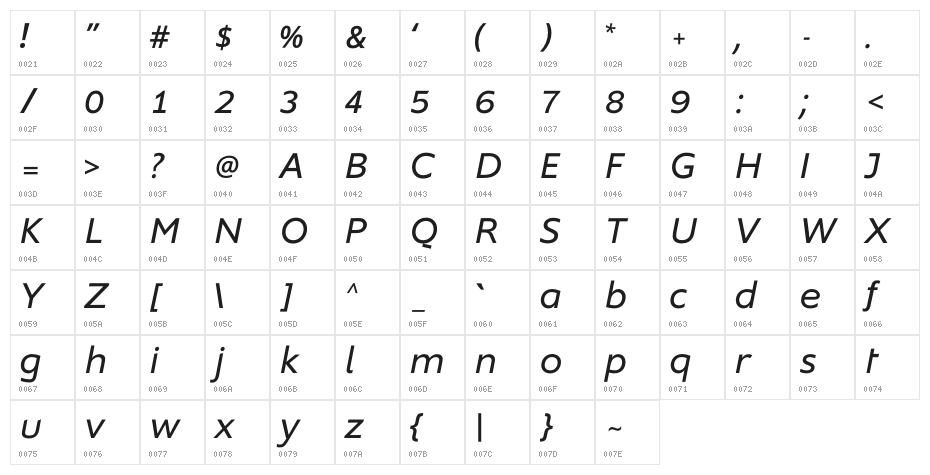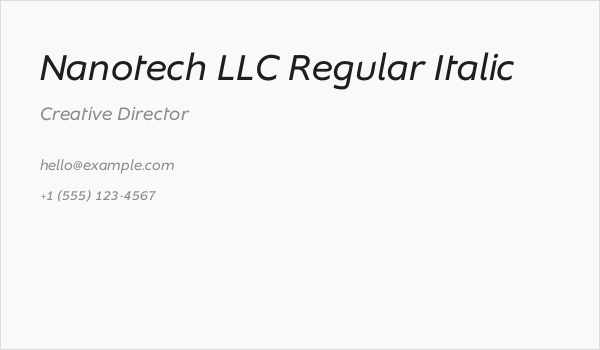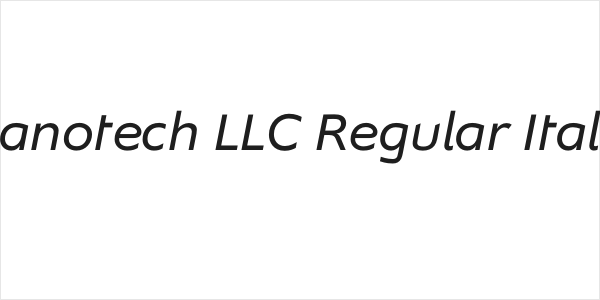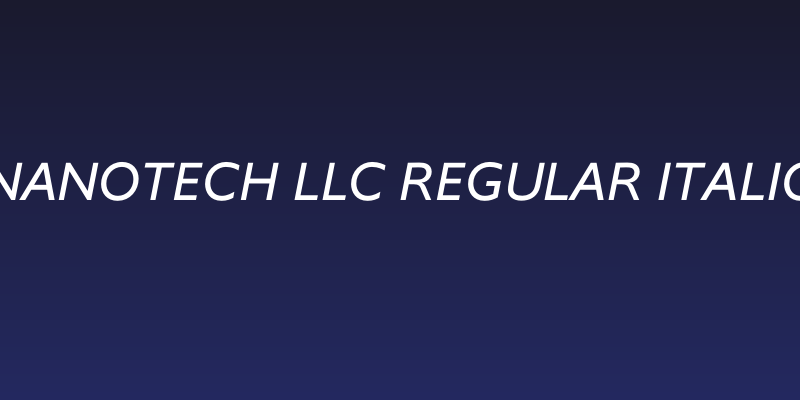
Nanotech LLC Regular Italic Font
Nanotech LLC Regular Italic Description
This font features a sleek and modern design with a slight italic slant, giving it a dynamic and forward-moving appearance. The characters are sans-serif, providing a clean and uncluttered look that enhances readability. The strokes are consistent in thickness, offering a medium contrast that balances elegance with simplicity. The spacing between characters is normal, ensuring clarity and legibility across various text sizes. Its contemporary style makes it suitable for a wide range of applications, from digital interfaces to print media.